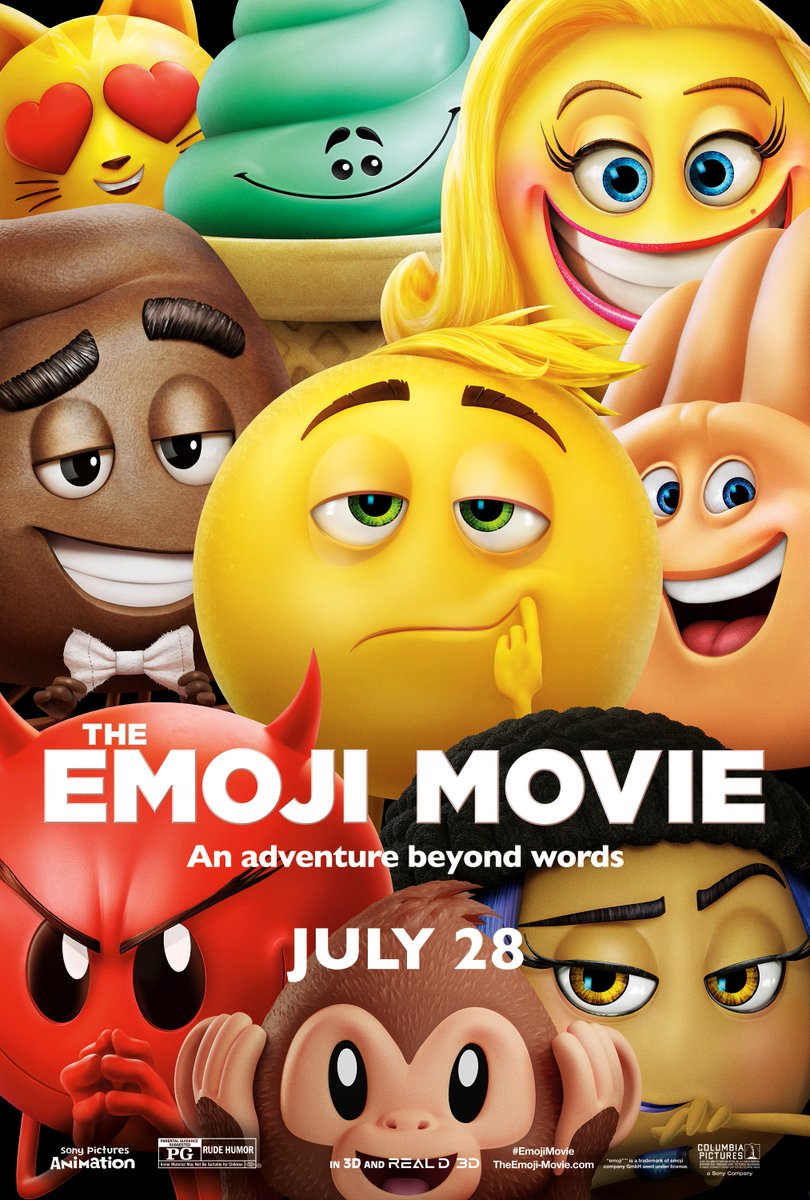
The Emoji [Movie] Font
AnimationThe Emoji Movie is a 2017 American computer-animated science fiction comedy film that follows the story of Gene, a multi-expressional emoji who lives in a smartphone. Gene sets out on a journey to become a "meh" emoji like his parents, but along the way, he meets other emojis and discovers that he can use his unique ability to help his friends.
The Emoji movie title in the poster is very similar to Gotham Ultra designed by Tobias Frere-Jones in 2000. Gotham is a geometric sans-serif typeface that is among the most widely used fonts and is inspired by the architectural lettering from mid-century New York City.